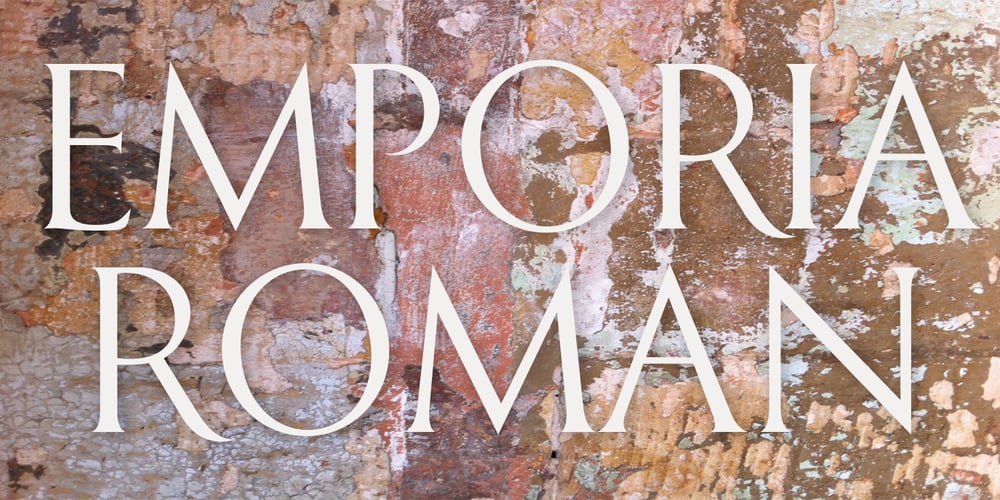
Emporia Roman Font Family was designed by Keith Morris and published by Bean & Morris. Emporia Roman contains 2 styles and family package options. SPQR Senatus Populusque Romanus or The Senate and People of Rome as quoted by the likes of Marcus Tullius Cicero or Tully to his friends and Titus Livius otherwise known as Livy. SPQR appeared on battle standards carried by Roman troops and no doubt can still be seen chiseled into stone facades across the old empire of the ancient Romans. This evokes visions of stonemasons delicately inscribing messages that were meant to endure, one which can still be seen on the Trajan column circa 114AD. Emporia Roman is a modern display font that was inspired by the craft of those ancient artisans, with an added lowercase set, some flourished alternates, an oldstyle set of figures and now with a matching Italic.